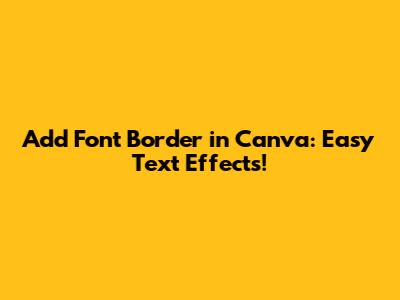
- Enhanced Visibility: A border can significantly improve the visibility of your text, especially when it's placed on a busy or similarly colored background. The border creates a contrast that makes the text much easier to read.
- Visual Appeal: Borders add a professional and polished look to your designs. They can transform simple text into something visually striking and appealing.
- Emphasis: Using a border is an excellent way to emphasize specific words or phrases in your design. It draws the viewer's eye to the most important parts of your message.
- Branding: Consistent use of font borders in your designs can help reinforce your brand identity. Choose a border color that aligns with your brand's color scheme to create a cohesive look.
- Creativity: Adding borders opens up a whole new world of creative possibilities. You can experiment with different colors, thicknesses, and styles to achieve unique and interesting effects.
- Select Your Text: First, click on the text box you want to add a border to. Make sure the text is highlighted and ready for editing.
- Go to the Effects Tab: Look at the top toolbar in Canva. You'll see an option labeled Effects. Click on it to open the Effects panel.
- Choose the Outline Effect: In the Effects panel, you'll find several options like Shadow, Lift, Hollow, and more. Look for the Outline effect and click on it. This will immediately add a default outline to your text.
- Customize Your Border: Once the Outline effect is applied, you'll see options to customize it. You can change the following:
- Color: Click on the color picker to choose the color of your border. You can select from Canva's default colors, use the color palette to find a specific shade, or enter a hex code for a precise match.
- Thickness: Use the slider to adjust the thickness of the border. Drag it to the right to make the border thicker, and to the left to make it thinner. Experiment to find the perfect thickness that complements your text and design.
- Experiment with Styles: Depending on the font and the overall design, you might want to try different border styles. Some fonts look better with a thicker border, while others benefit from a more subtle outline. Play around with the settings until you achieve the desired look.
- Fine-Tune Your Design: After adding the border, take a step back and look at your overall design. Does the border complement the other elements on the page? Does it enhance the readability of the text? Make any necessary adjustments to ensure the border integrates seamlessly with your design.
- Duplicate Your Text: First, select the text box you want to add a border to. Then, duplicate it. You can do this by pressing
Ctrl+D(orCmd+Don a Mac), or by right-clicking on the text box and selecting Duplicate. - Change the Color of the Duplicate: Select the duplicated text box and change its color to the color you want your border to be. Use the color picker in the top toolbar to choose your desired color.
- Position the Duplicate Behind the Original: Now, you need to move the colored duplicate behind the original text. Right-click on the duplicate text box and select Layer > Send to Back. This will place the colored text behind the original text.
- Adjust the Position for the Border Effect: Use the arrow keys on your keyboard to nudge the duplicate text slightly in all directions (up, down, left, right). This will create the appearance of a border around your original text. You might need to zoom in to get the positioning just right.
- Group the Text Boxes: Once you're happy with the border effect, select both the original text box and the duplicated text box. Then, click on the Group button in the top toolbar. This will group the two text boxes together, so they move and resize as one unit.
- Experiment with Different Effects: This method opens up a lot of creative possibilities. You can try using different colors for the border, creating multiple duplicates for a thicker border, or even adding effects like shadows or glows to the border.
- Fine-Tune Your Design: As with the previous method, take a step back and look at your overall design. Make sure the border complements the other elements on the page and enhances the readability of the text. Adjust the position, color, and thickness of the border as needed.
- Choose the Right Font: Not all fonts are created equal. Some fonts look great with borders, while others don't. Experiment with different fonts to see which ones work best with your chosen border style. Bold and sans-serif fonts often work well, as they have clean lines that make the border more visible.
- Consider Your Color Palette: The color of your border should complement the other colors in your design. Avoid using colors that clash or create too much contrast. A harmonious color palette will make your design look more professional and visually appealing. Using different color combinations can really make your design stand out and give off a unique vibe.